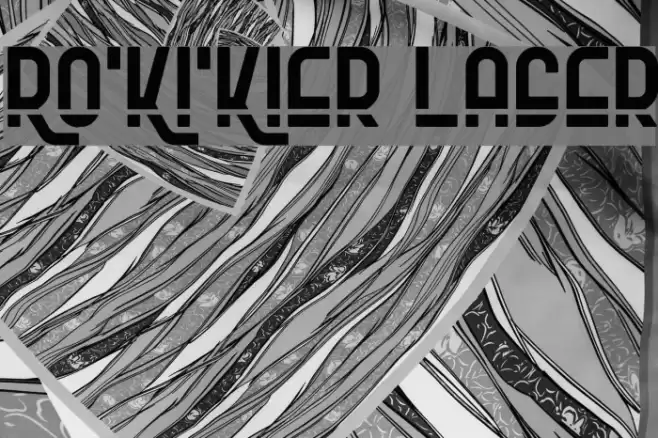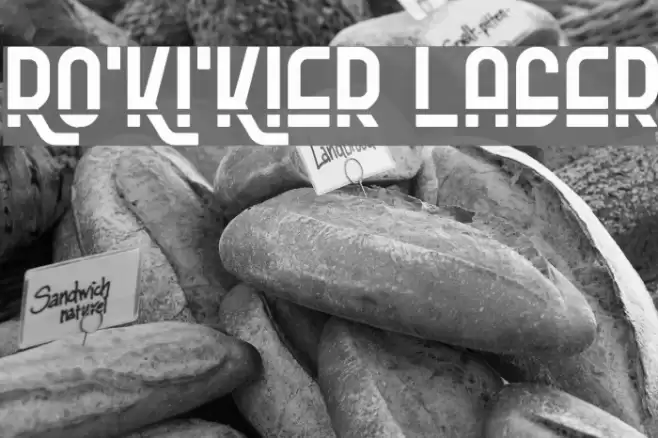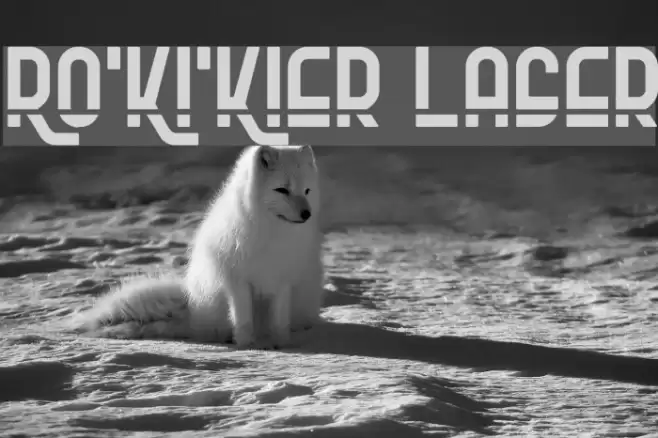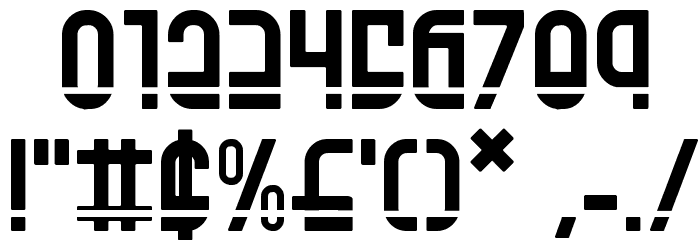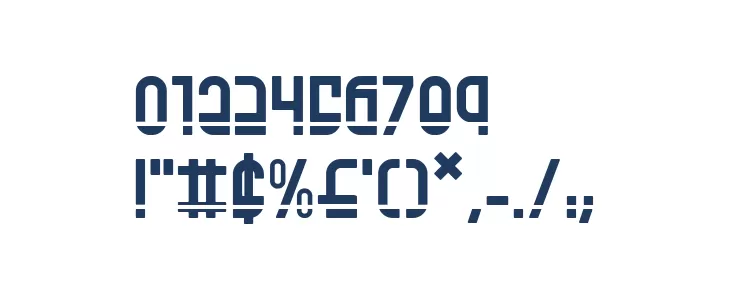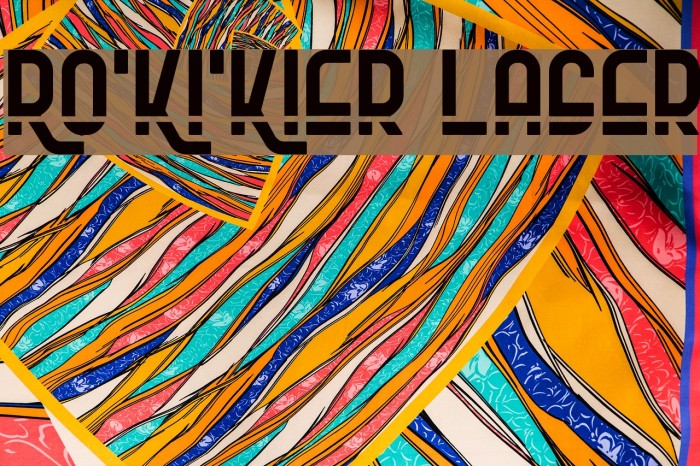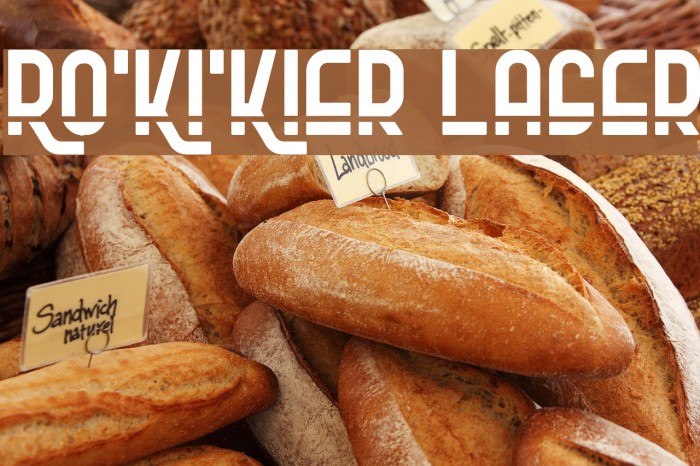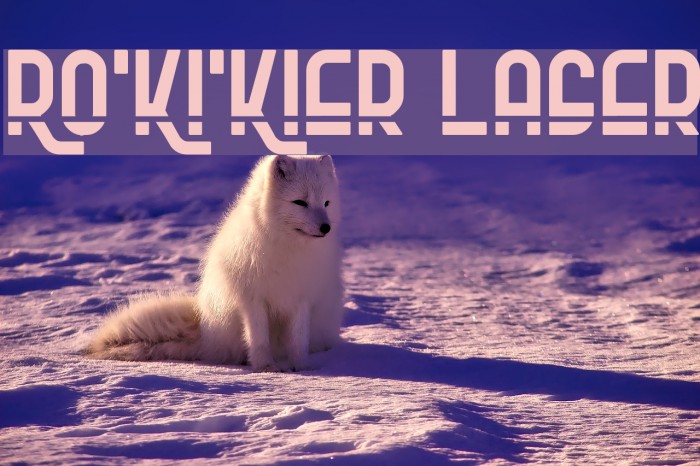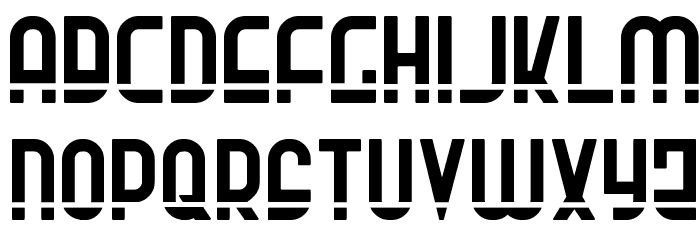
Ro'Ki'Kier Laser Font
Ro'Ki'Kier Laser Description
This font features a futuristic and geometric design with a distinct stencil-like appearance. Each character is composed of bold, straight lines and sharp angles, creating a sense of precision and modernity. The uppercase and lowercase letters maintain a consistent height, contributing to a uniform look. The numerals and special characters follow the same stylistic approach, ensuring cohesion across all elements. The font's unique cut-out sections and symmetrical design elements make it stand out, ideal for projects that require a modern and edgy aesthetic.
A futuristic, geometric stencil font with bold lines and sharp angles from Uncategorized fonts.
- Proposed Projects: Ideal for technology branding, sci-fi themed designs, video game titles, and modern posters.